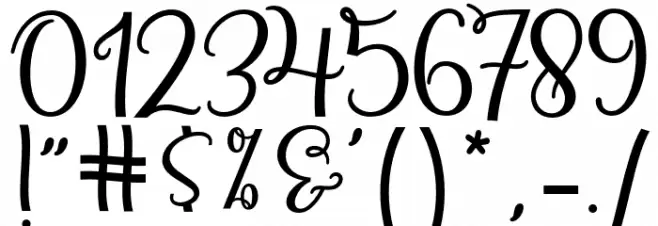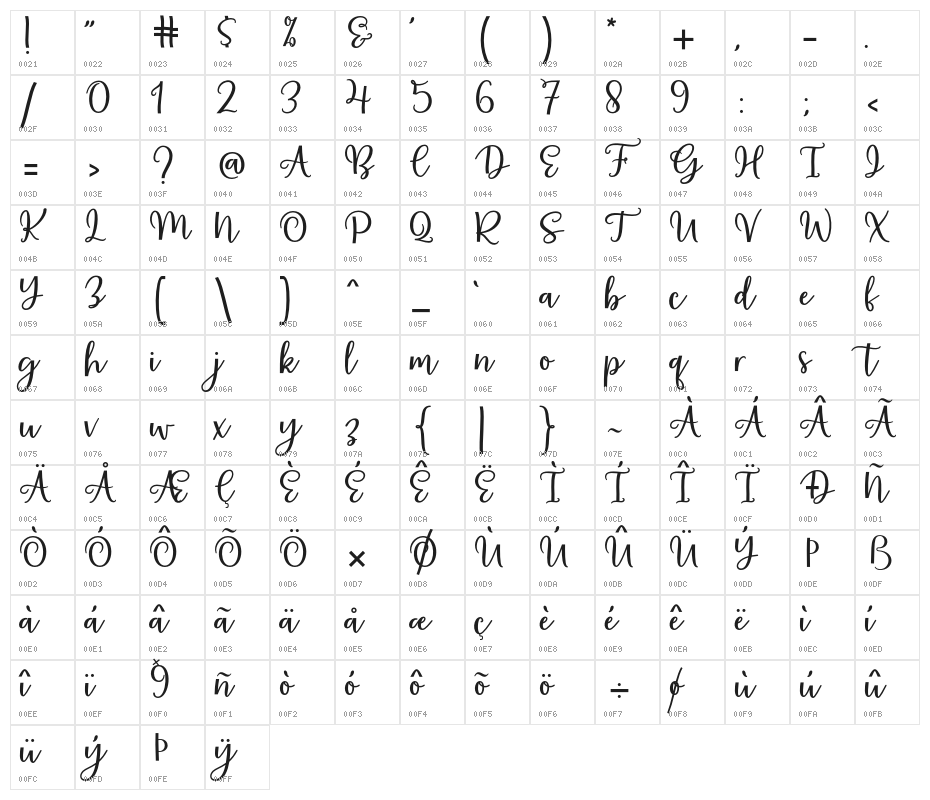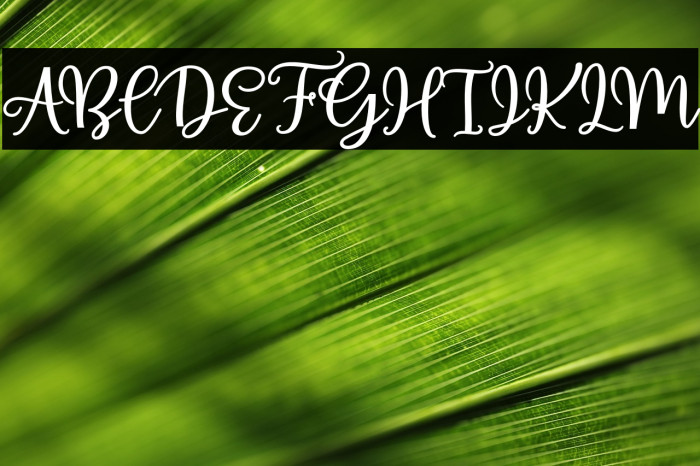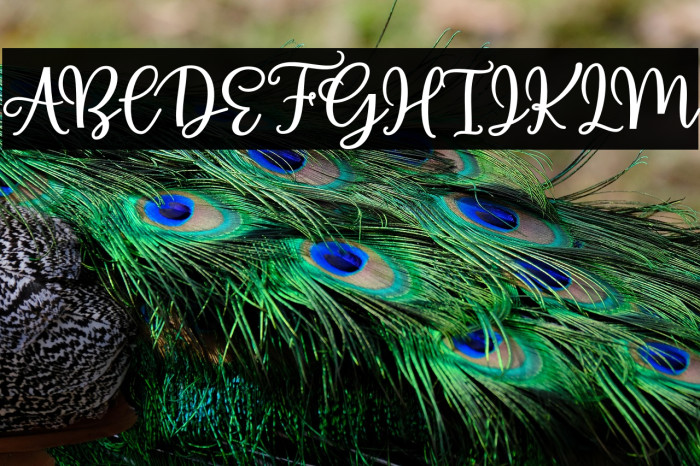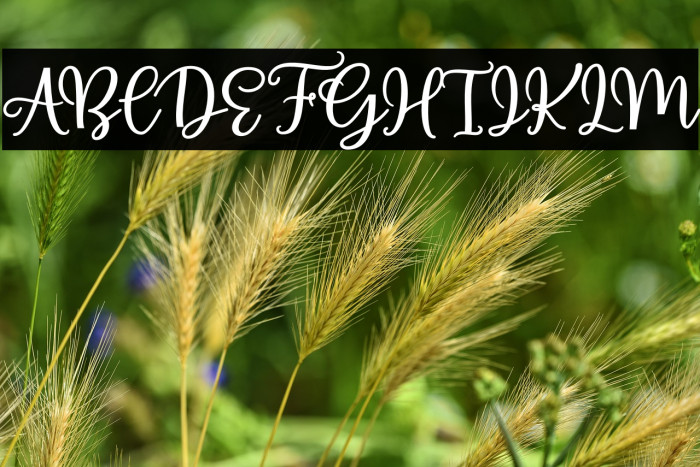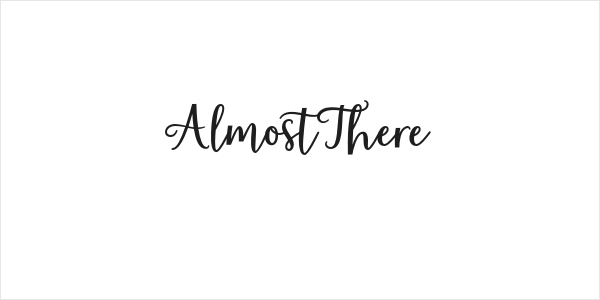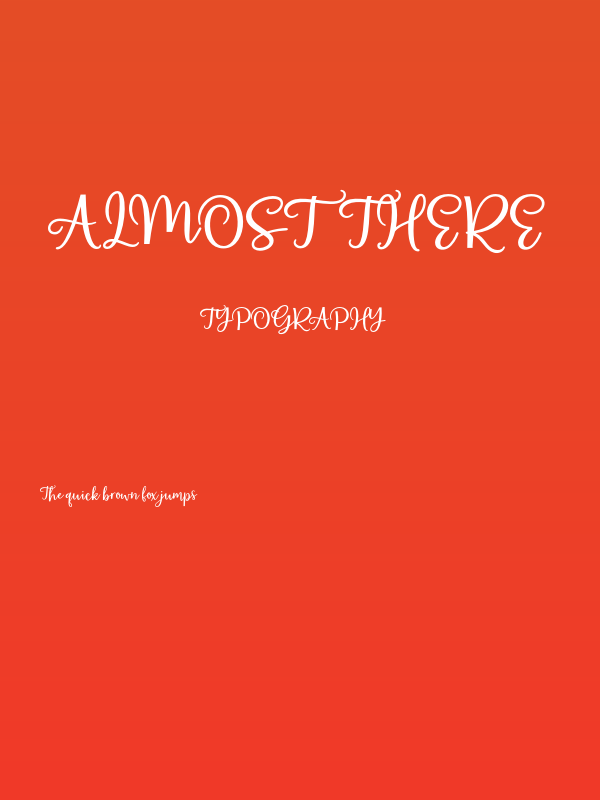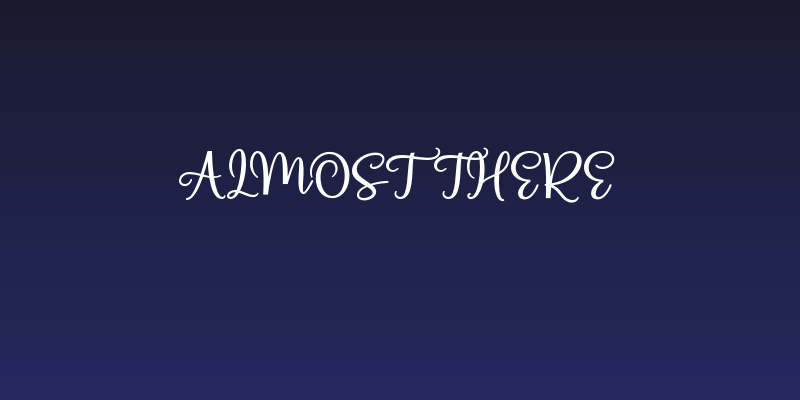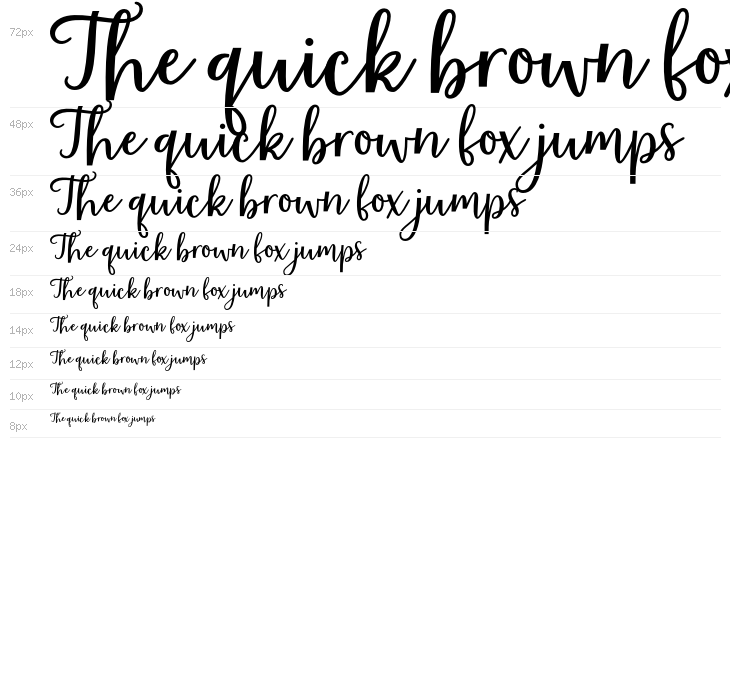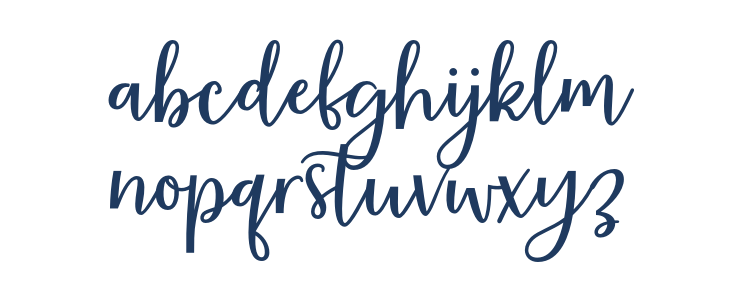
AlmostThere Font
AlmostThere Description
This font features a playful and elegant script style with smooth, flowing curves and a handwritten appearance. The uppercase letters are characterized by their decorative loops and swirls, adding a touch of whimsy and sophistication. The lowercase letters maintain a consistent flow, with some characters extending below the baseline, enhancing the font's dynamic and lively feel. The numerals are bold and slightly rounded, complementing the overall aesthetic. Special characters are creatively integrated, maintaining the font's cohesive style. This font is ideal for projects that require a personal and artistic touch, such as invitations, greeting cards, and branding materials.
| Proposed Projects | Ideal for wedding invitations, greeting cards, branding, and artistic projects. |